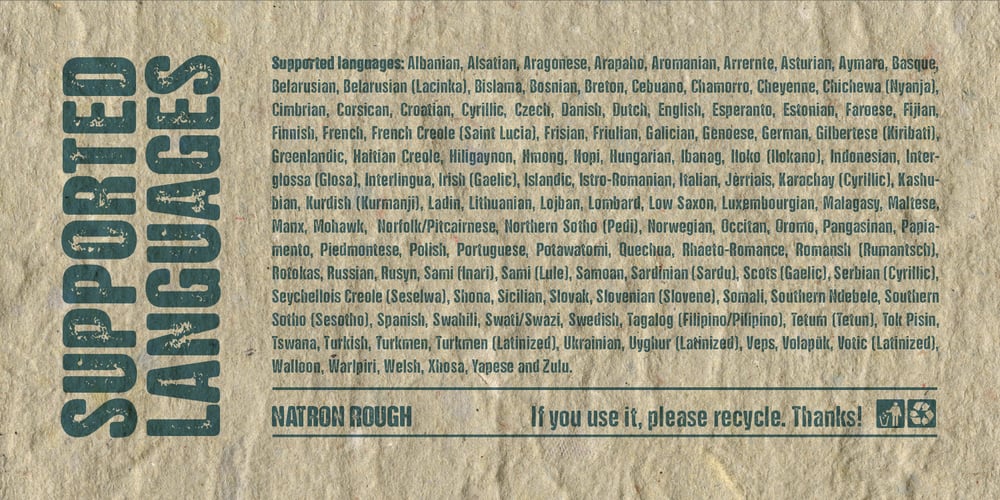
NATRON Rough
NATRON Rough font
NATRON Rough Font Family was designed by Lazar Dimitrijević and published by Posterizer KG. NATRON Rough contains 2 styles and family package options. NATRON Rough is the textured version of NATRON (rounded and condensed sans serif), in two weights, medium and bold. It features stylistic alternates and ligatures. Both fonts support Latin and Cyrillic codepages for Western, East and Central European, and Baltic countries. Designed for tight-fitting text, NATRON Rough is great for display, branding, labels, packaging, advertising, food, sports, titles, and any other type of visual communication projects.